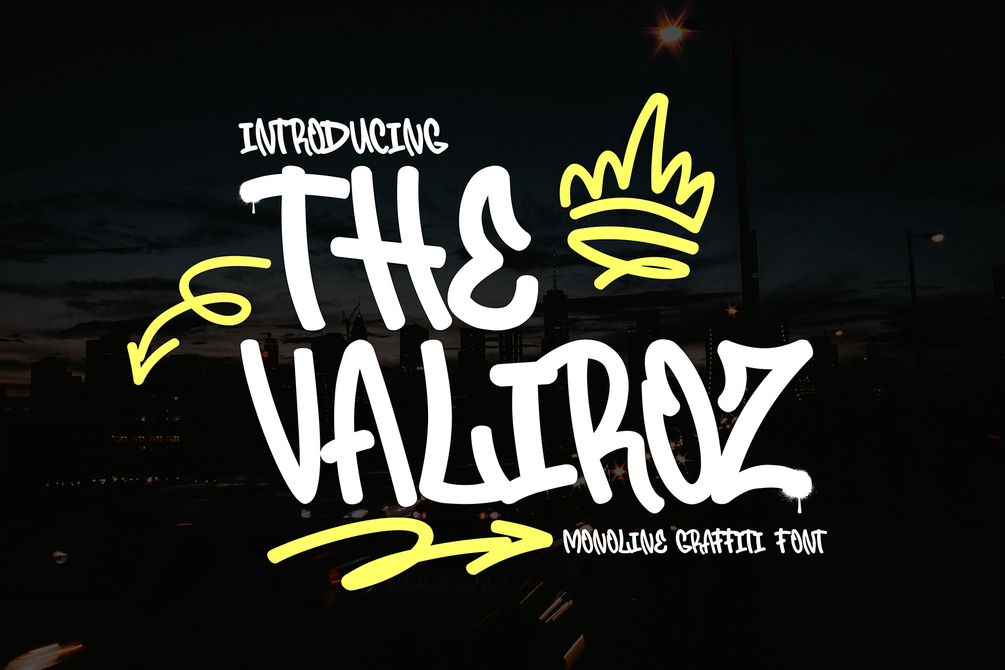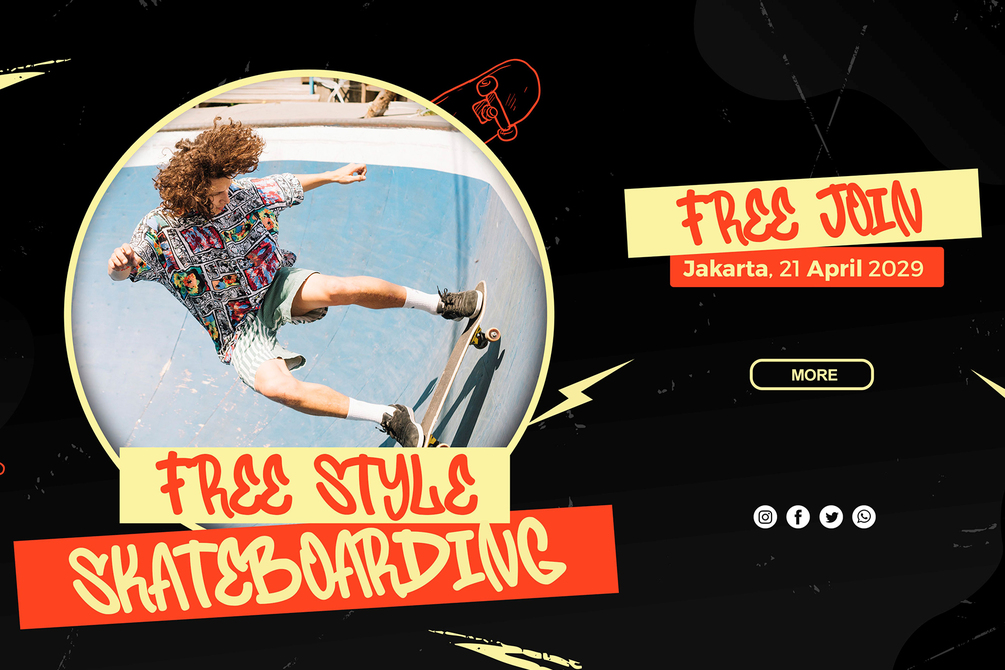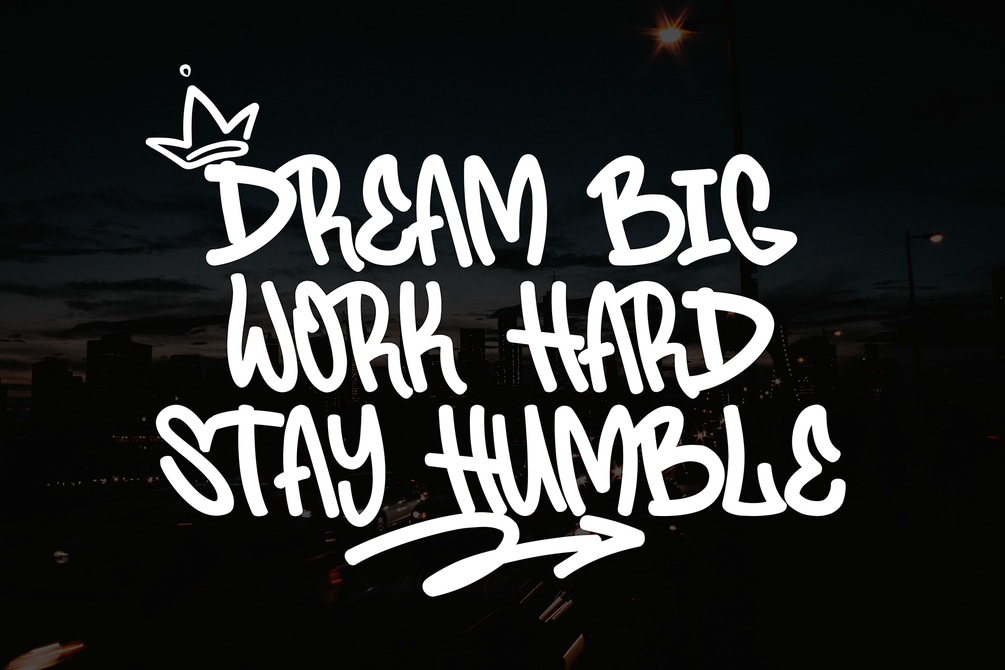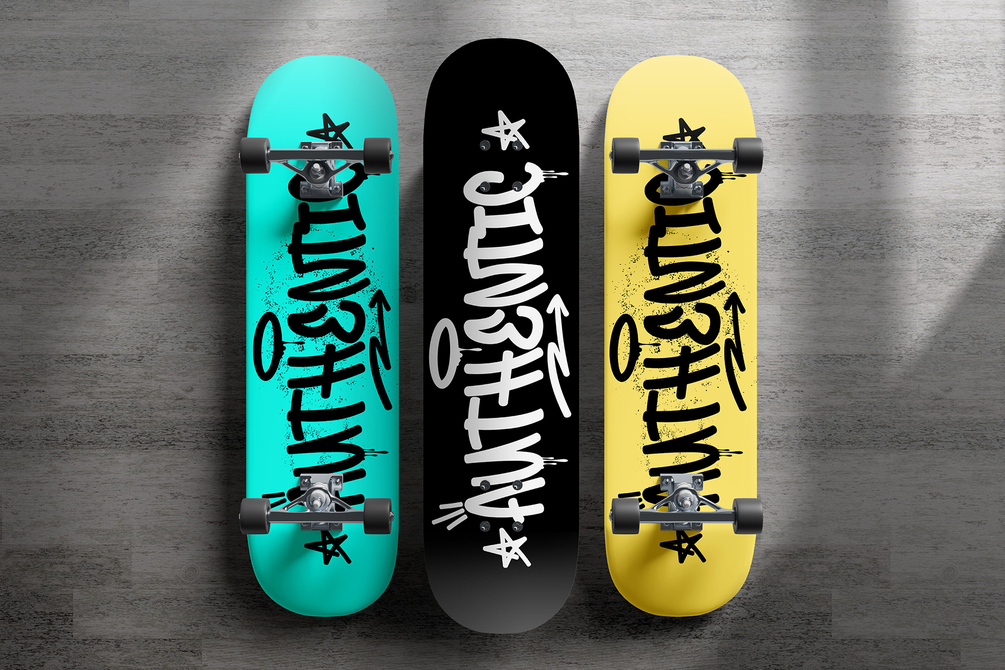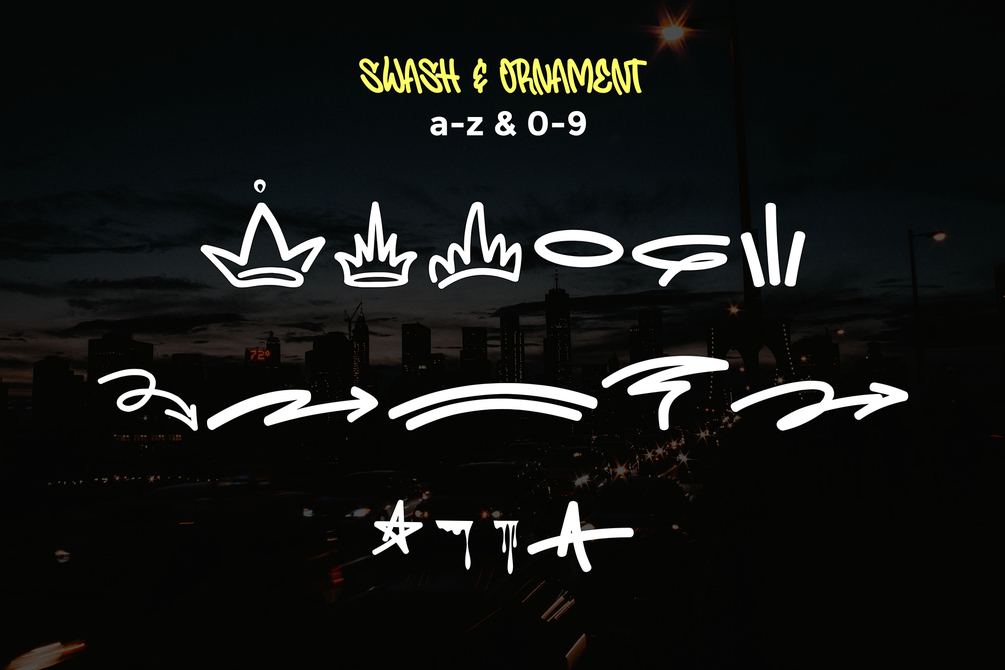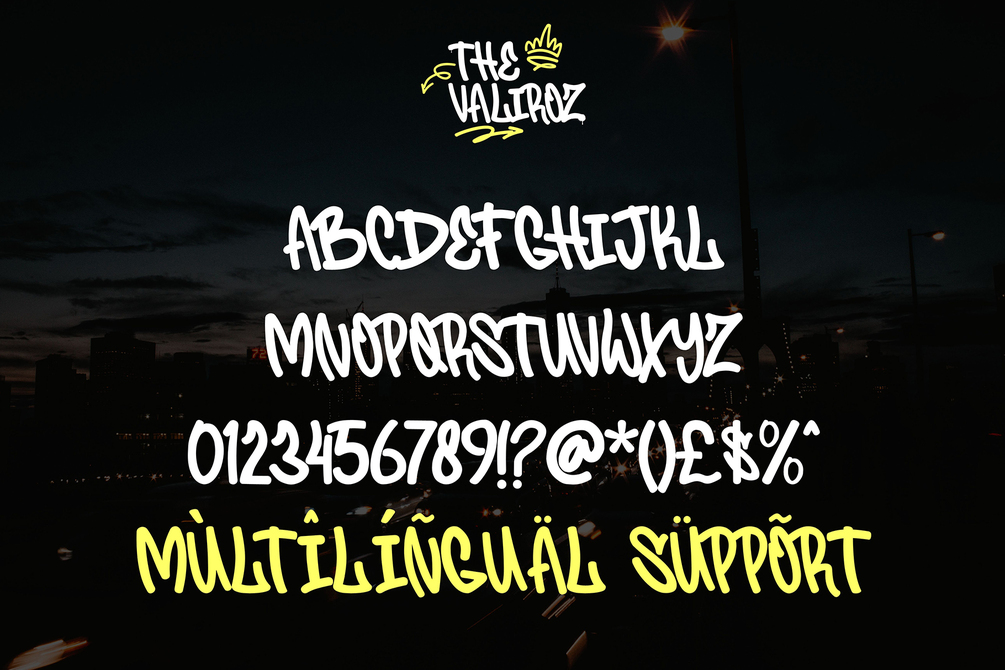
The Valiroz | Monoline Graffiti Font | free font
"The Valiroz" is described as a monoline graffiti font that incorporates swash characters. Fonts in the monoline style maintain consistent stroke widths throughout the letterforms, offering a sleek and uniform appearance. The addition of swash characters introduces decorative elements or flourishes that embellish the font, enhancing its stylistic versatility.
This font, "The Valiroz," combines the clean and modern look of monoline typography with the artistic flair of swash characters. It's suitable for various design projects where a graffiti-inspired typographic style with a touch of decorative elegance is desired.
• Versatile for branding, headline, or printing product